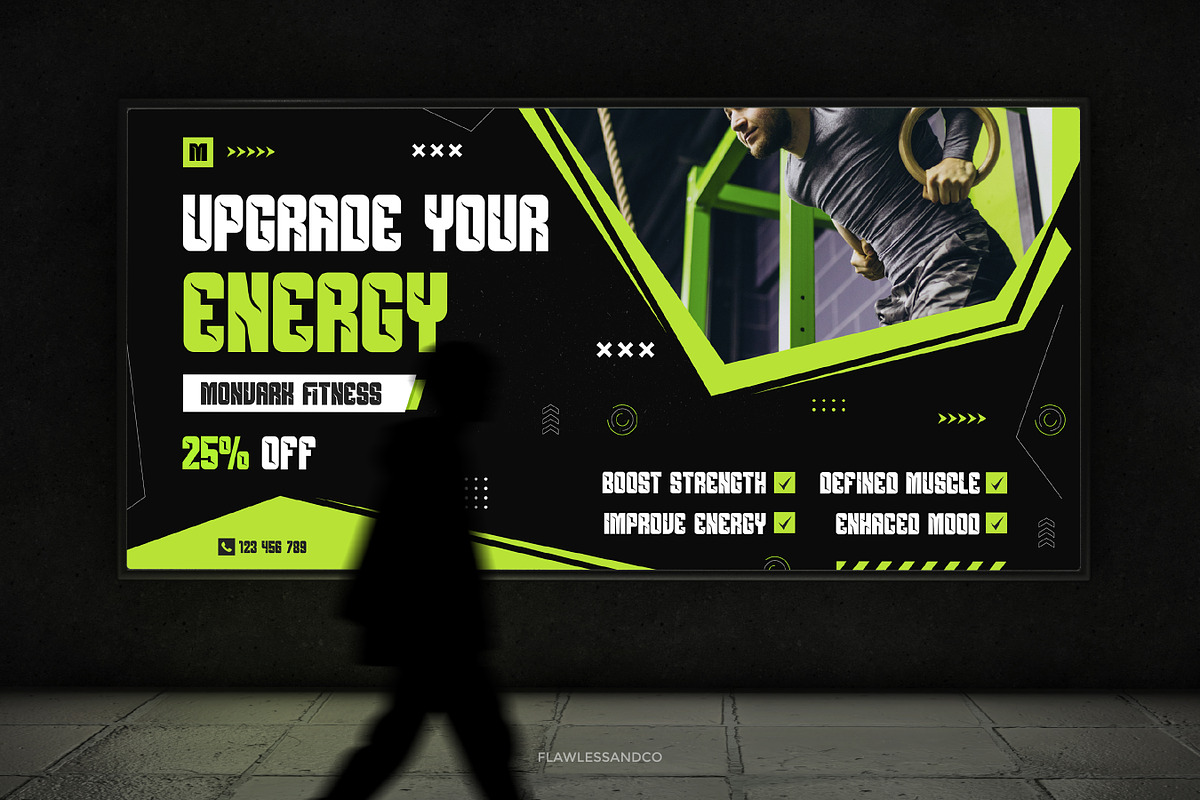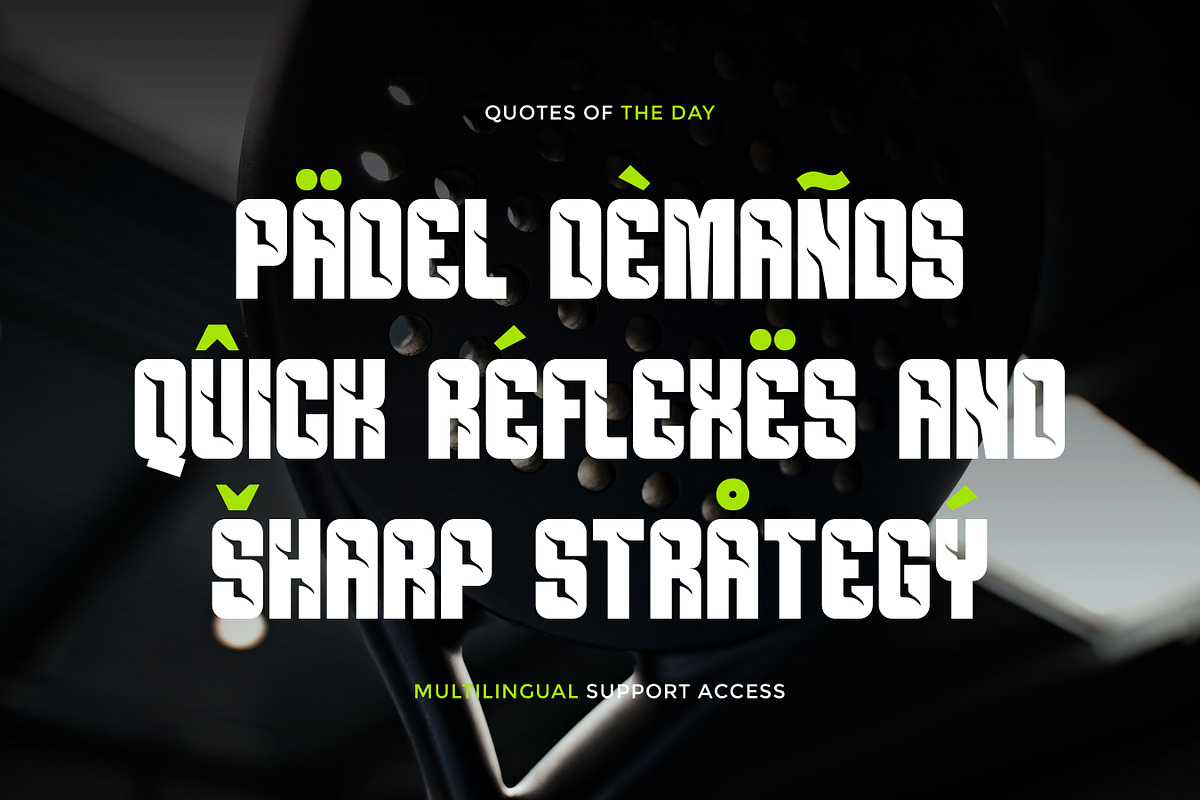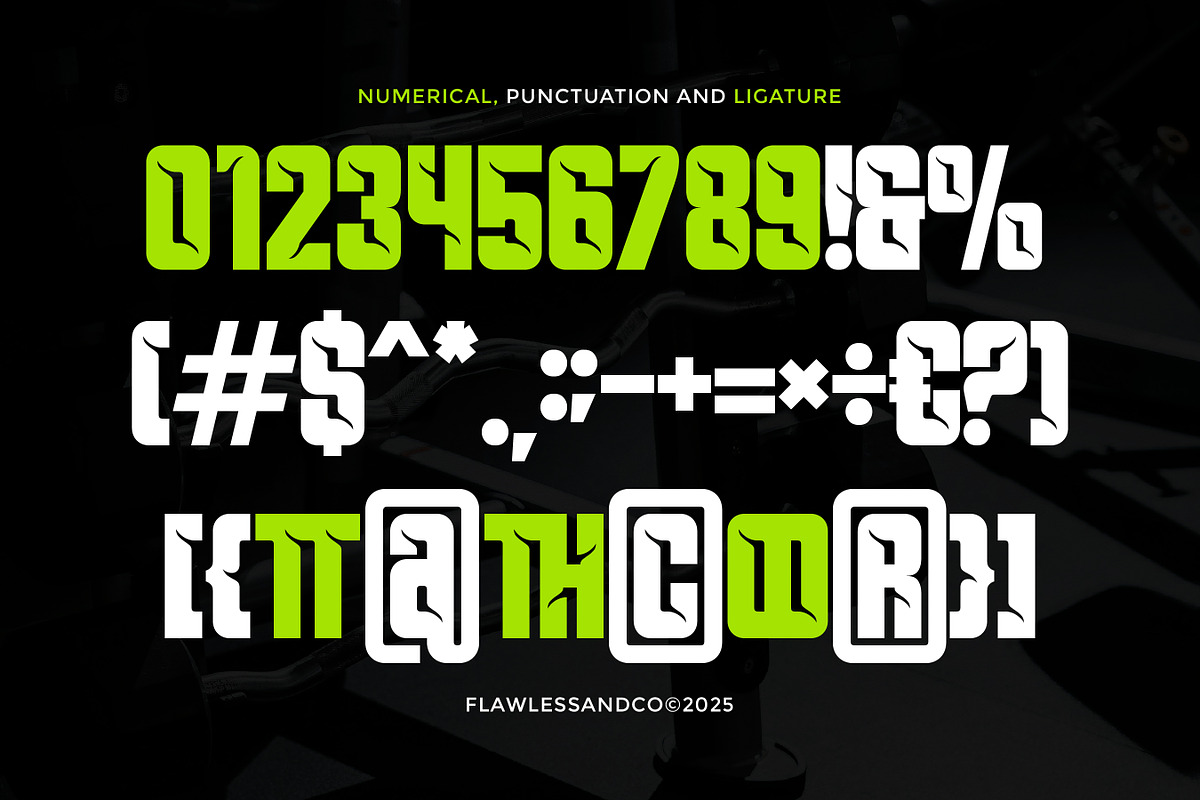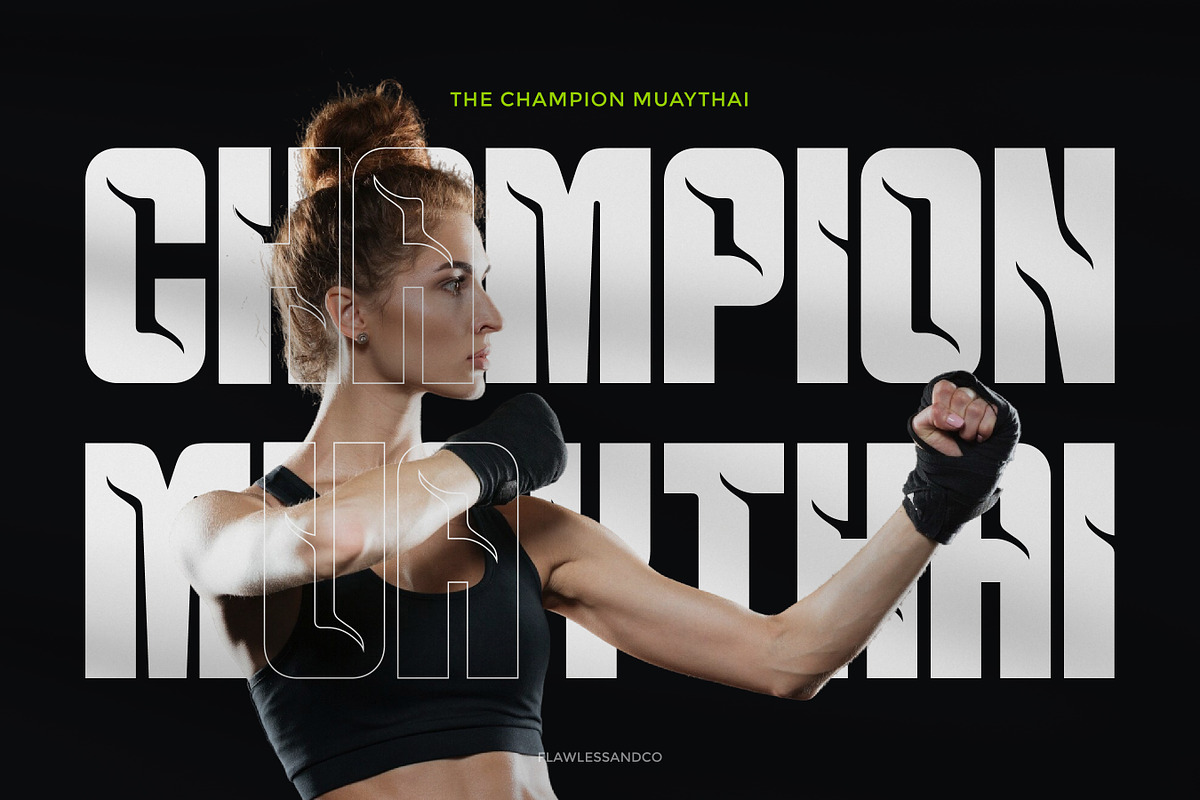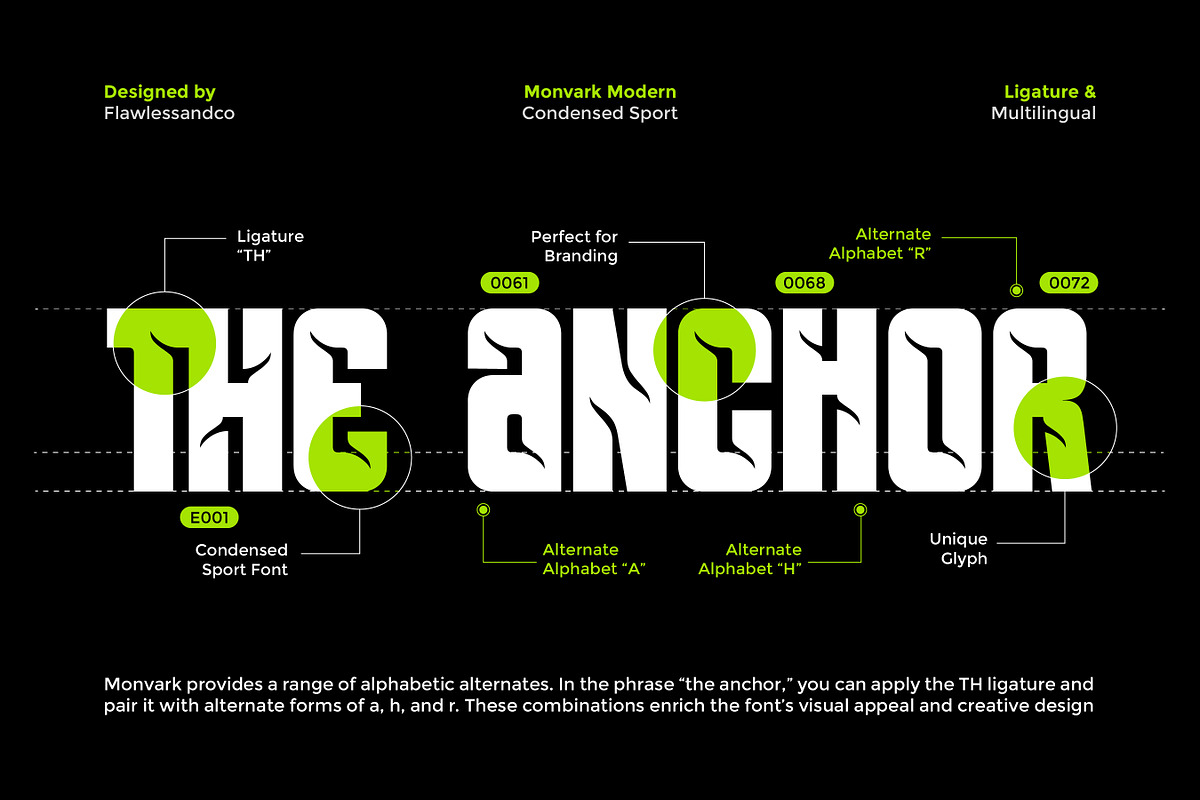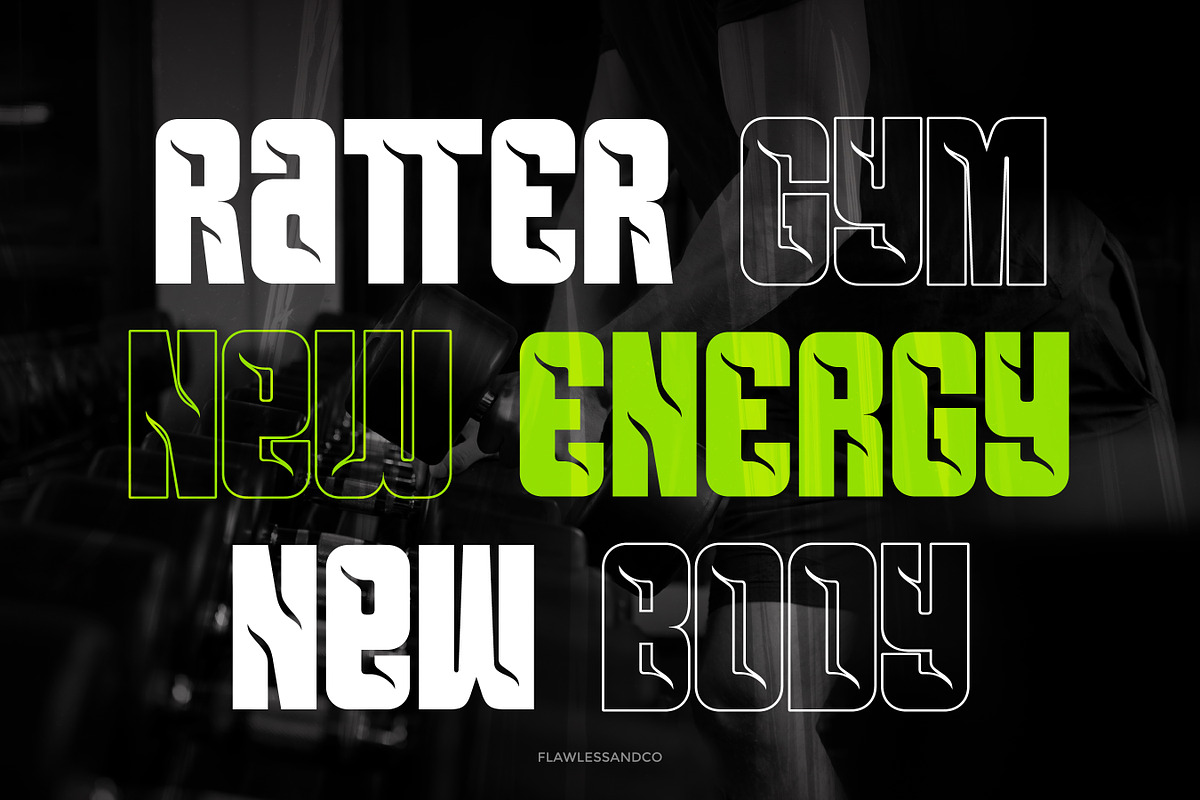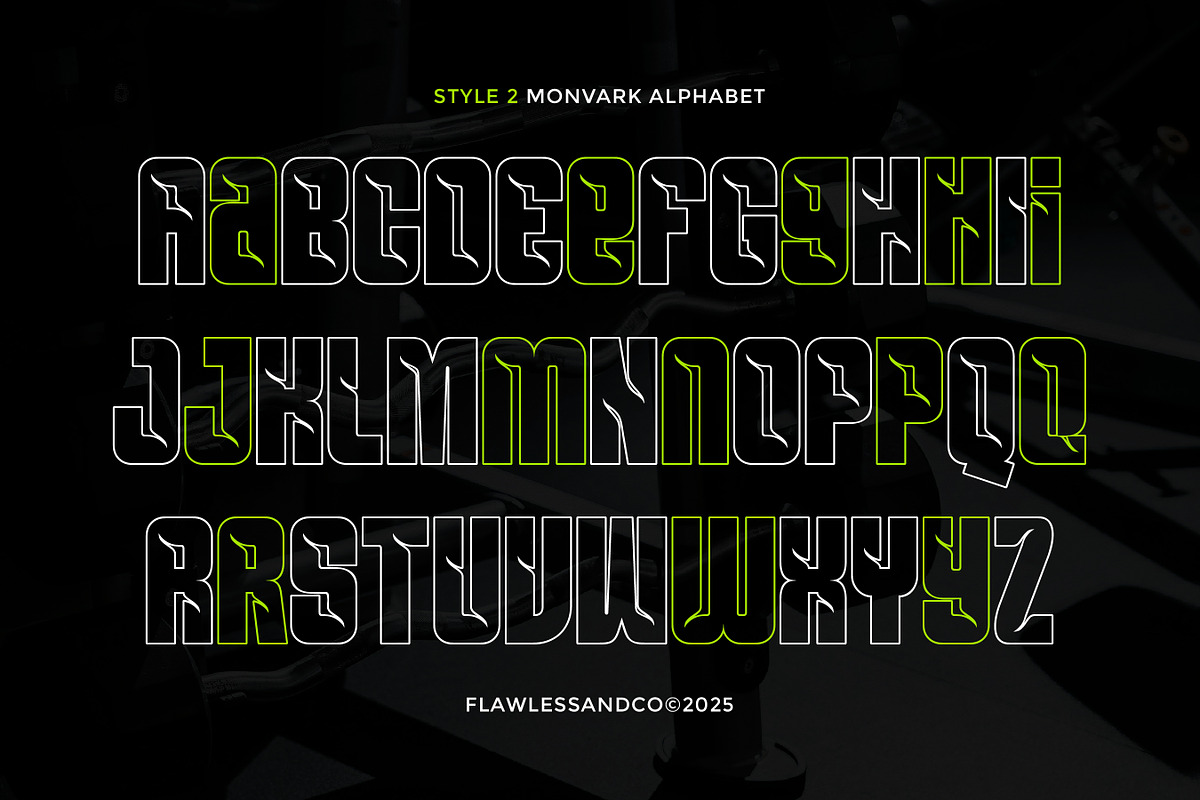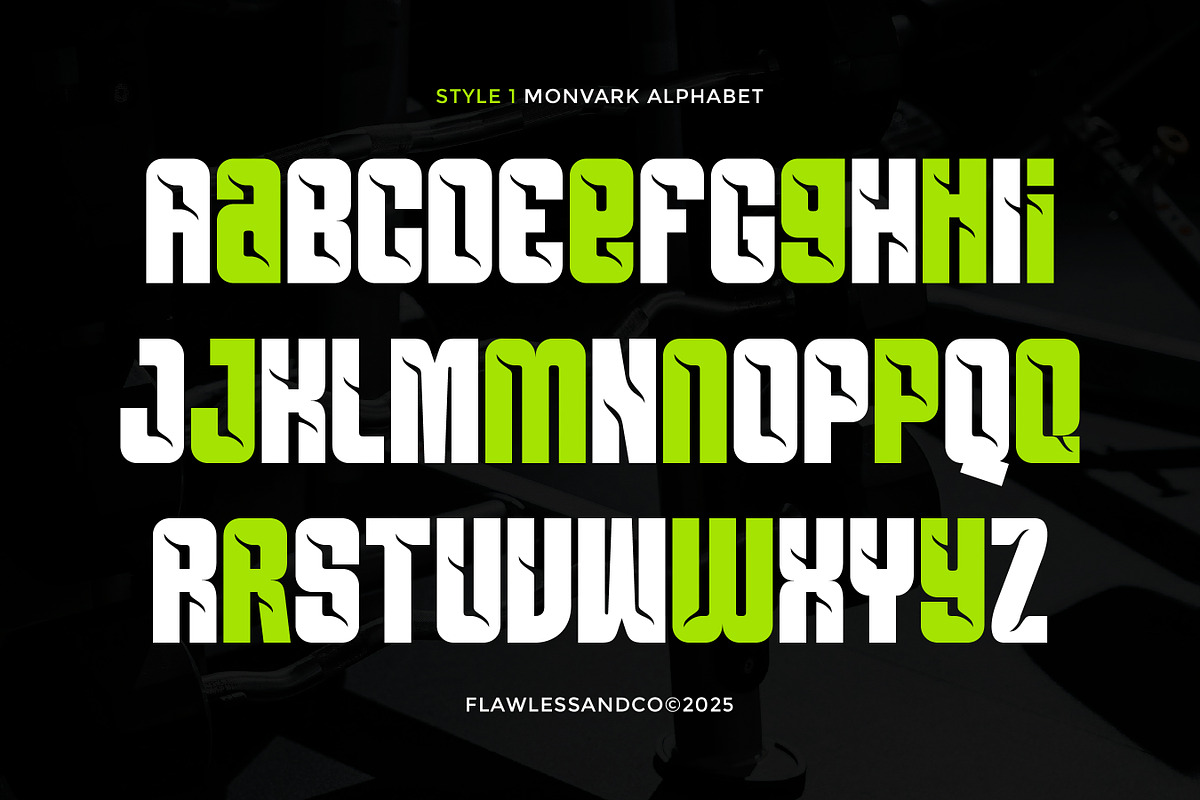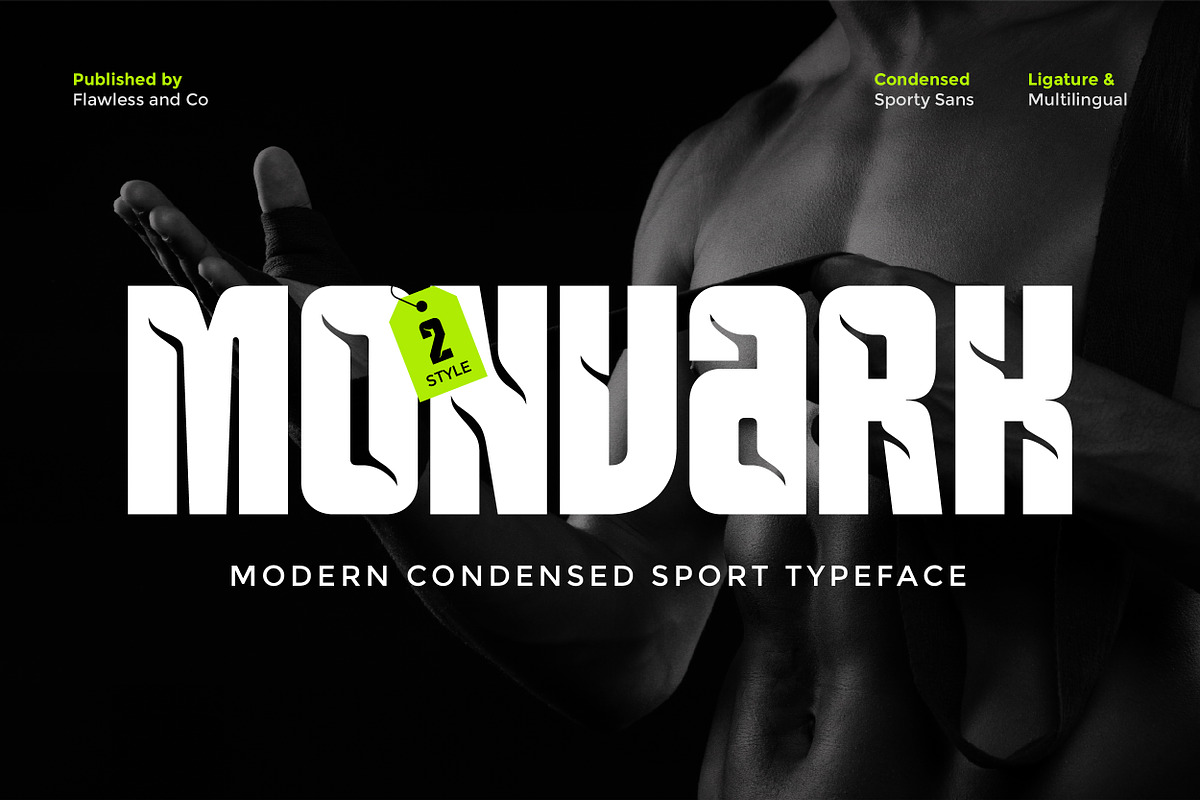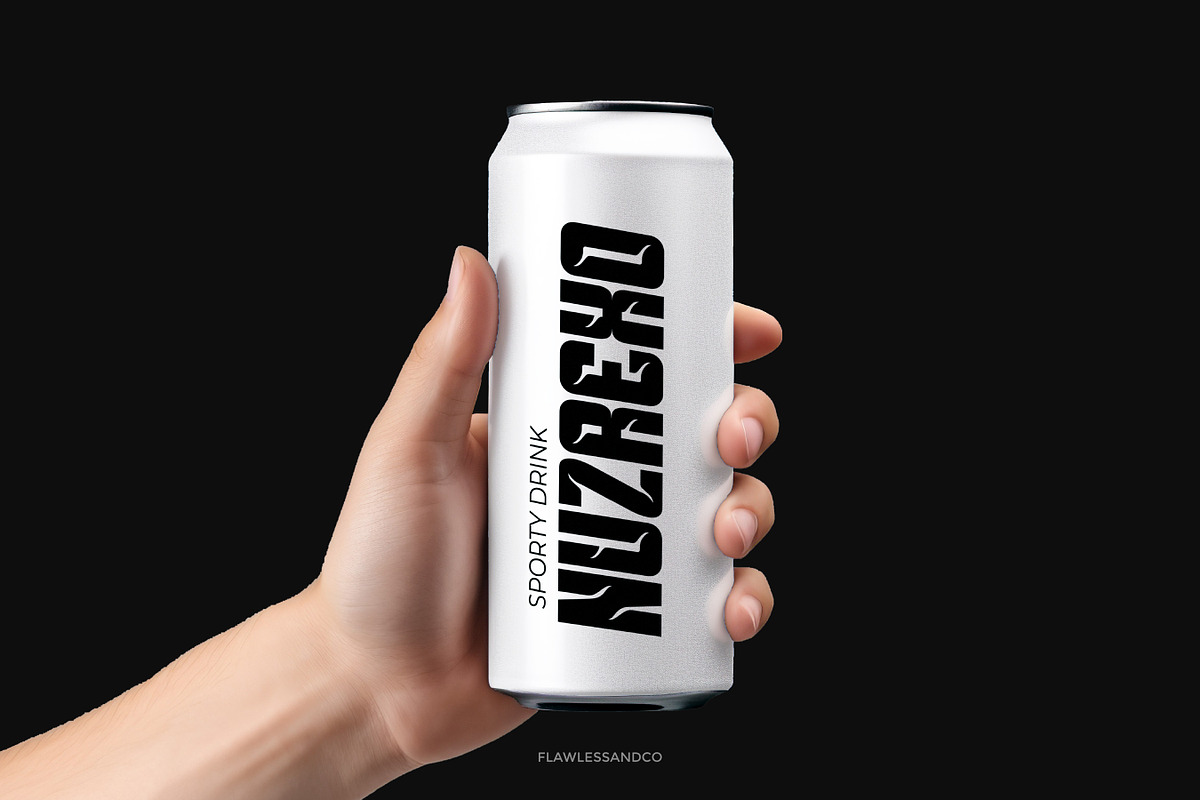
Monvark - Modern Condensed Sport Font
Monvark is a bold and powerful condensed sport font designed to bring intensity, precision, and unstoppable energy to your visuals. Built with a sharp modern style and strong condensed structure, Monvark delivers maximum impact in every letter—perfect for projects that demand speed, strength, and confidence. With its aggressive letterforms, dynamic cuts, and clean sporty aesthetics, Monvark instantly elevates any design into a high-performance visual identity. Whether you’re creating team branding, gym promotions, sports merchandise, or bold headlines, this typeface ensures your message hits with maximum force.
Who Should Use Monvark?
Monvark is perfect for designers, sports creators, fitness brands, and anyone who needs bold, condensed typography to build strong, fast, and high-impact visual identities.
A Must-Have Font for Brand and Logo Creators and Designers
Monvark delivers the bold strength and compact structure needed to create logos and branding that demand attention. Its aggressive shape and modern sporty style make every project feel powerful, energetic, and unmistakably professional.
Why Choose Monvark for Brand and Logo Projects?
Monvark is designed to give brands a commanding, high-energy presence. Its condensed sporty structure delivers maximum impact in minimal space, making logos look stronger, sharper, and instantly recognizable. Every letter carries a sense of intensity and motion — perfect for sports teams, fitness brands, activewear, and bold promotional designs. With its unique cut-in details and modern attitude, Monvark ensures your branding stands out with confidence, power, and a competitive edge.
Suitable For
- Sports branding
- Fitness and gym logos
- Activewear packaging
- Esports and gaming visuals
- Event and competition posters
- Bold headline designs
- Team identity and merchandise
- Modern promotional materials